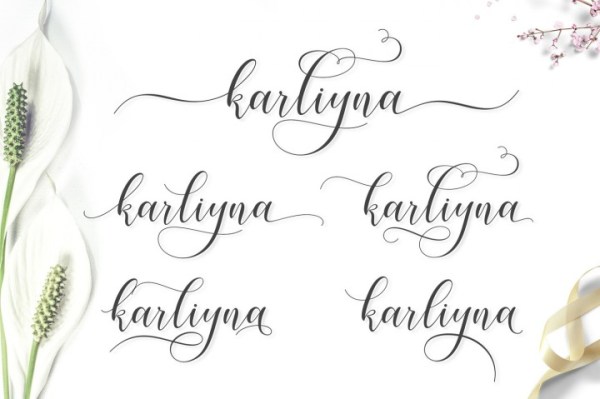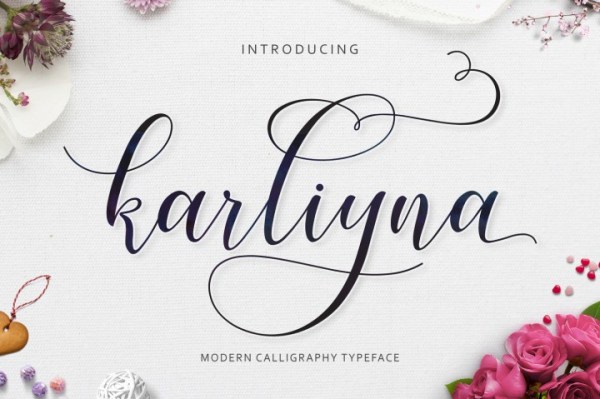
Font Frenzy: Karliyna Script
Karliyna Script comes with 400+ glyphs. The alternative characters were divided into several Open Type features such as Swash, Stylistic Sets, Stylistic Alternates, Contextual Alternates and comes with a complete Commercial License.